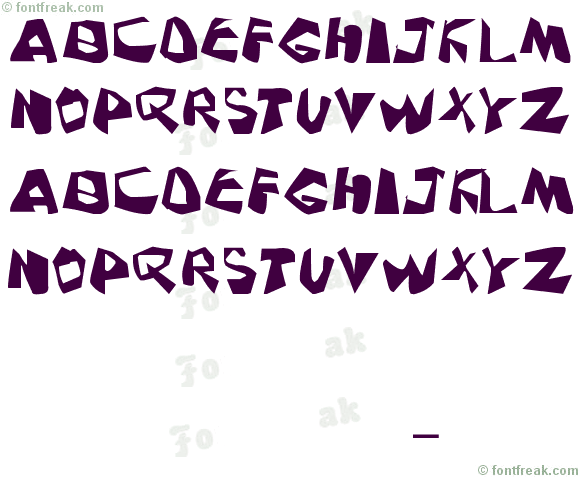
Pink Noise
About Pink Noise
The Pink Noise font by Spork Thug Typography is an engaging display typeface that exudes a unique charm and character. This font is categorized as a decorative typeface, characterized by its playful strokes and whimsical design. The strokes exhibit a moderate weight with a delightful contrast that enhances its visual appeal. The letters are well-spaced, making them easy to read while maintaining a lively aesthetic. Decorative elements infuse the typeface with personality, making it a standout choice for various creative projects.
Pink Noise is an excellent choice for a range of applications. It shines in wedding invitations, where its lighthearted nature can add a touch of fun and creativity. Additionally, it is perfect for movie posters that aim to capture attention and convey a sense of excitement. Restaurant menus can benefit from the font's playful style, enticing customers with an inviting and friendly vibe. Content creators and social media marketers will find it useful for eye-catching graphics and promotional materials that require a unique flair. Graphic designers will appreciate its versatility and ability to adapt to various themes and concepts.
What sets the Pink Noise font apart is its ability to blend fun and functionality seamlessly. Its distinctive design captures attention while remaining practical for everyday use, making it a must-have for anyone seeking to add a touch of creativity to their projects.